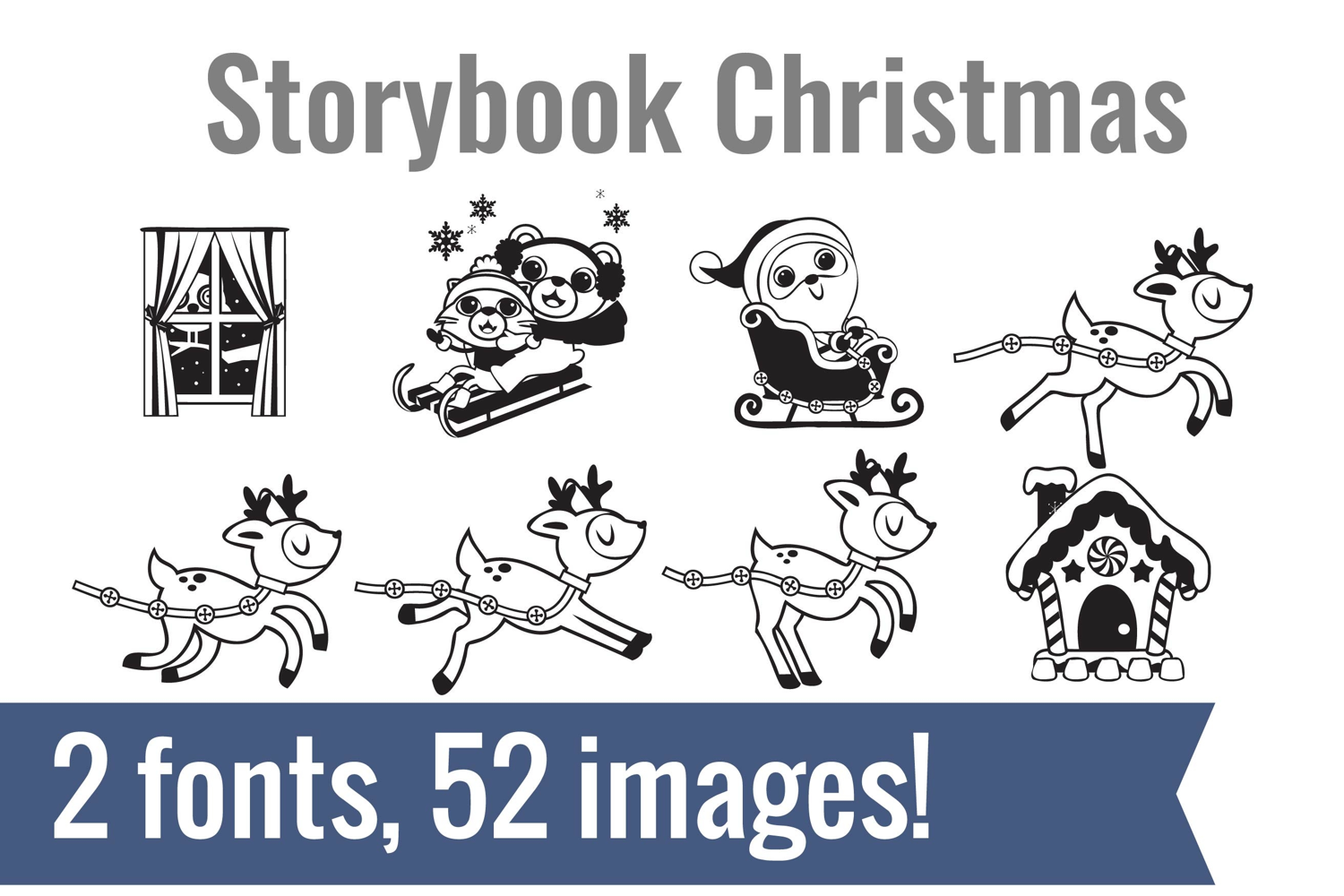
Storybook Christmas Dingbats
Unlock endless creativity with two perfectly coordinated fonts! There are two dingbat fonts in this bundle, both featuring the character of the perfect Christmas story and ornaments too.
Tired of spending hours searching for the perfect icons and graphics? Our dingbat fonts put dozens of cohesive, scalable designs at your fingertips. Simply install the font and type a letter to produce a pre-made image. From charming seasonal icons for holiday cards to intricate frames for your invitations, these fonts let you create stunning designs for vinyl cutting, paper crafts, planners, and more.